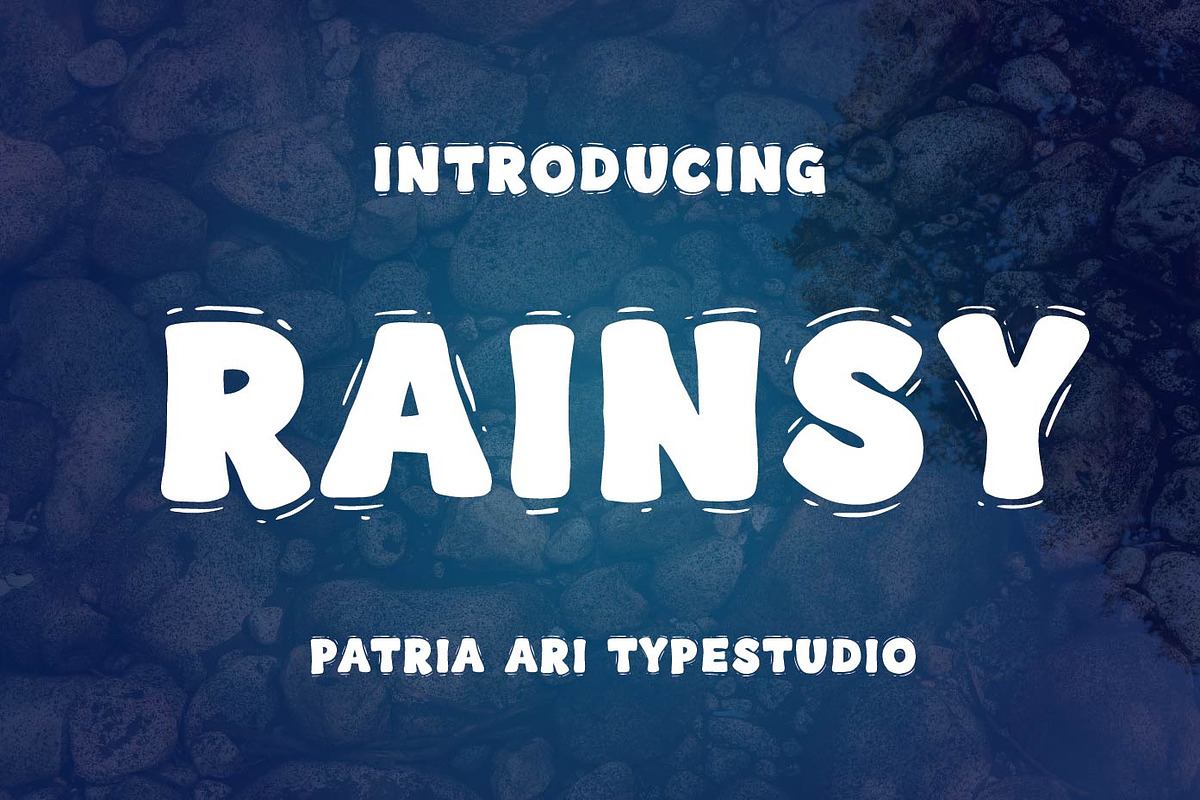
Rainsy - Floating Bouncy Fonts Free Download
Rainsy - Floating Bouncy Fonts Free Download is a cheerful and whimsical typeface designed with playful, uneven baselines that give it a fun, hand-crafted look. Perfect for kids’ projects, greeting cards, social media graphics, planner stickers, DIY crafts, and playful branding, Rainsy adds energy and personality to every word.
Its floating, bouncy letters create a sense of movement and joy, making it ideal for designs that aim to feel lighthearted and inviting. Whether you're designing a party invite or adding flair to a creative product, Rainsy keeps the mood bright and friendly.